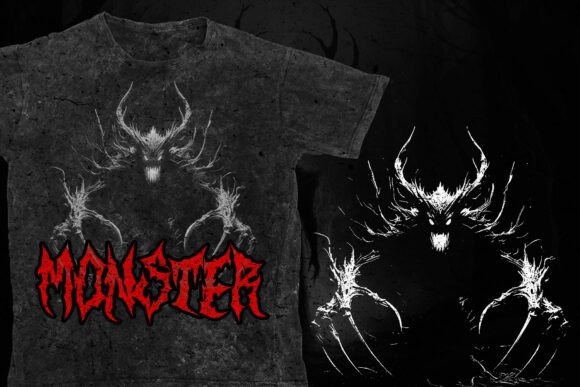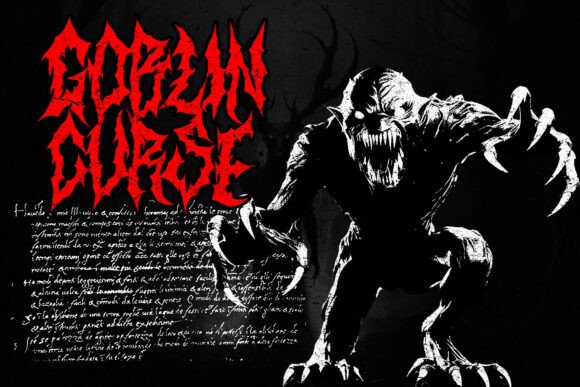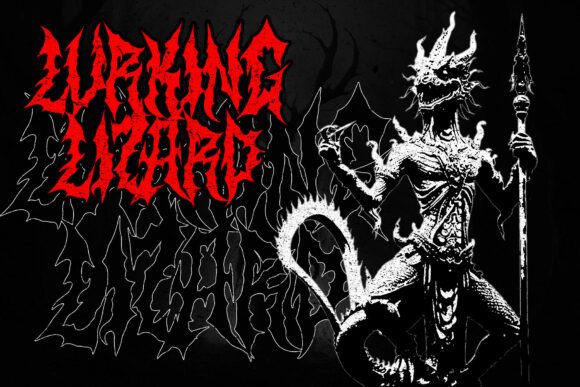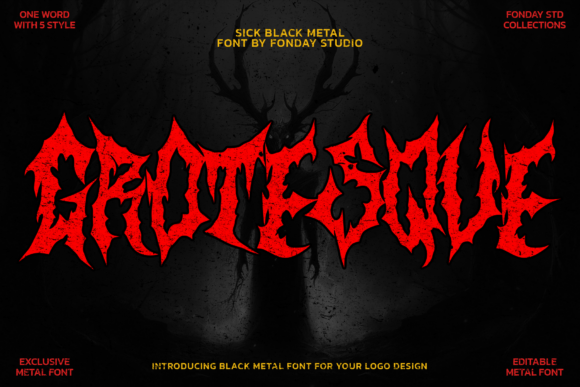
Unleash the Fury: Introducing Anomaly Font – The Razor-Sharp Black Metal Font
In the realm of extreme design, where raw power and unbridled energy reign supreme, Anomaly Font emerges as a force to be reckoned with. This razor-sharp black metal font is forged in chaos, embodying the intense, violent aesthetic of underground metal music. With its scorched, jagged letterforms and aggressive silhouette, Anomaly is the perfect companion for designers and crafters seeking to create bold, unapologetic, and ear-shattering visuals.
Designed for the Dark Side
Anomaly Font is specifically crafted for projects that dare to go dark and loud. Whether you’re a metal band looking for a logo that exudes ferocity, a festival organizer seeking to brand your event with an edgy identity, or an artist aiming to create album artwork that screams intensity, Anomaly is the ultimate choice. Its destructive styles and chaotic vibe are engineered to dominate horror visuals, brutal merchandise, noise posters, and all things metal.
Unmatched Visual Flexibility
One of the standout features of Anomaly Font is its incredible versatility. Packaged with 5 destructive styles in one word, this font offers designers unmatched visual flexibility. From flame-scorched to splattered and shredded, Anomaly allows you to experiment with various effects, ensuring your project stands out in a sea of conformity. This range of styles means you can tailor your design to fit the specific mood and aesthetic of your project, whether it’s death, doom, or distortion.
Perfect for Metal and Beyond
While Anomaly Font is undoubtedly built with metal in mind, its aggressive charm can be applied to a variety of projects beyond the genre. For designers and crafters working on projects that require a bold, edgy look, Anomaly provides the perfect solution. Its ability to evoke a sense of raw power and chaos makes it suitable for a wide range of applications, from horror-themed designs to posters and flyers for extreme events.
Technical Details and Usage
Anomaly Font is designed to be user-friendly, ensuring that you can easily incorporate it into your projects. Here are some key points to consider:
- Font Styles: Comes with 5 destructive styles, offering a range of chaotic effects.
- Design Use: Ideal for metal band logos, festival branding, album artwork, horror visuals, brutal merch, and noise posters.
- Customization: Offers ample opportunities for experimentation with different styles and effects.
Why Choose Anomaly Font?
Choosing Anomaly Font for your design project means opting for a font that is not just a typeface but a statement. It’s a declaration of boldness, an embrace of the extreme, and a commitment to standing out. Here are a few reasons why Anomaly should be your go-to font for metal and beyond:
- Unique Aesthetic: Offers a unique, aggressive look that’s hard to replicate with standard fonts.
- Versatility: With multiple styles, it provides the flexibility to adapt to different design needs.
- Impact: Guaranteed to make an impact, Anomaly Font is perfect for projects that aim to shock, awe, and provoke.
Anomaly Font is more than just a typeface; it’s a tool for unleashing your creativity and expressing the raw, unbridled energy of extreme music and design. Whether you’re a seasoned designer or a passionate crafter, Anomaly offers the perfect blend of style, versatility, and impact. So, if you’re ready to tear through the silence and leave a mark, look no further than Anomaly Font – the razor-sharp black metal font that’s about to change the game.